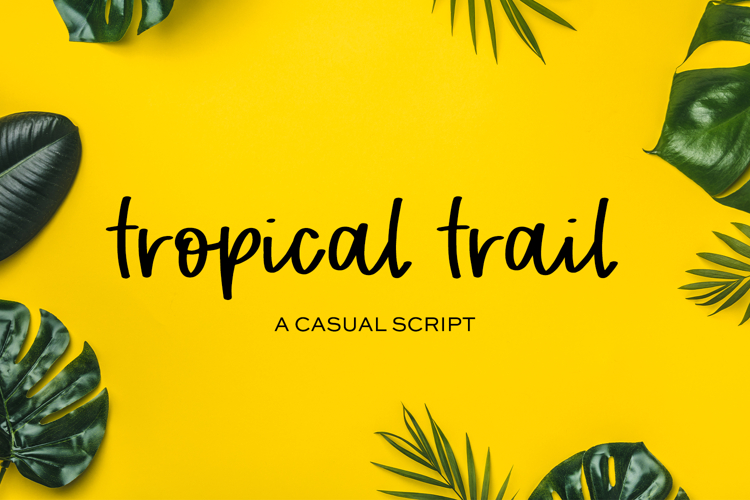
Tropical Trail Script is a thick, clean cursive script - almost like writing with a marker!
Tropical Trail Script is an excellent fit for:
- crafting - this font has a super smooth edge, making it an excellent fit for vinyl cutting machines like Silhouette or Cricut
- names or quotes on tumblers & mugs
- creating SVG files for sale
- printable quotes
- shirts
Tropical Trail Script includes:
- 26 lowercase alternates
- 14 ligature combinations: bb, dd, ee, ff, gg, ll, mm, nn, oo, pp, rr, ss, th, tt